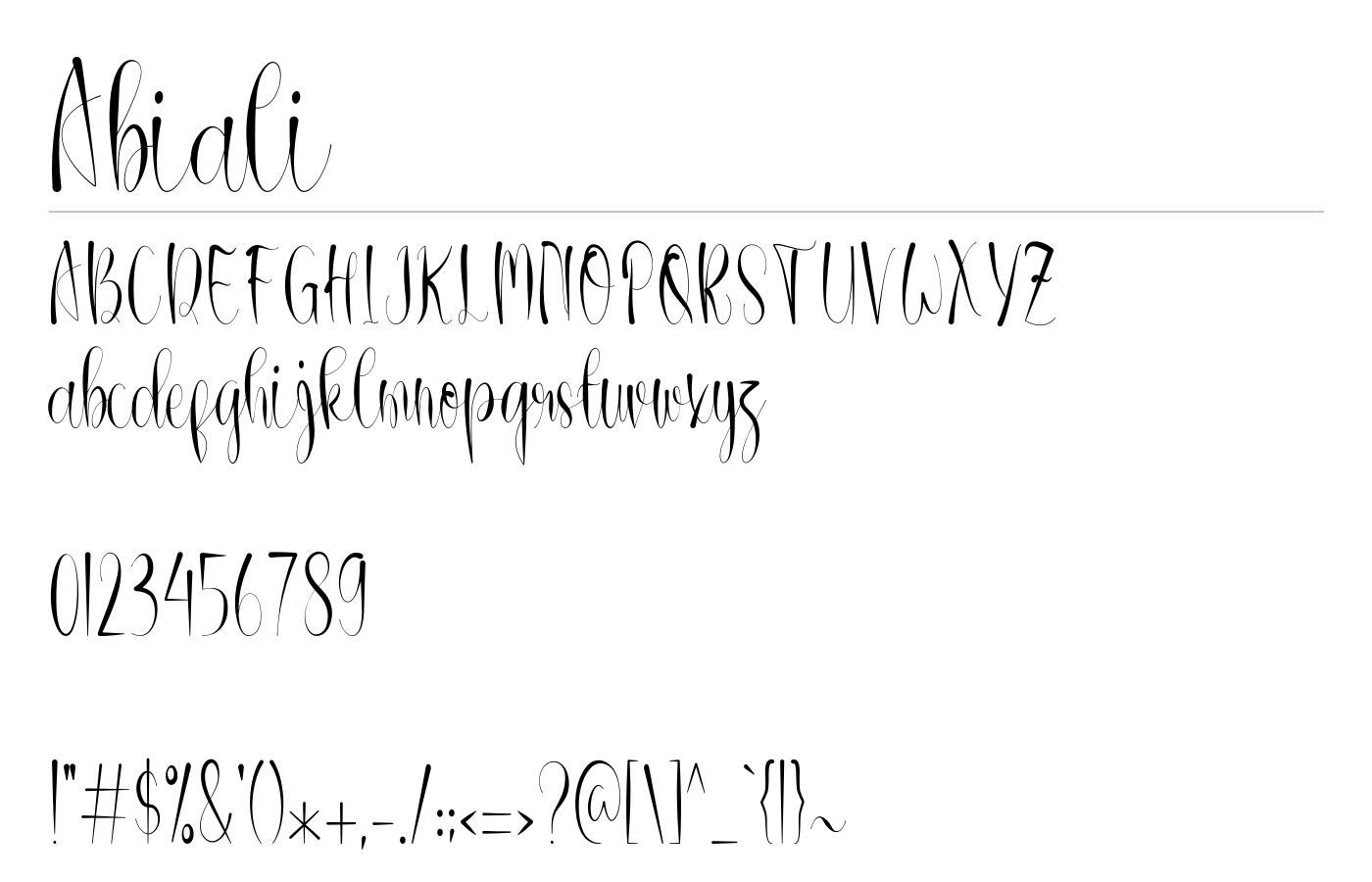
Abiali is a delicate, handwritten script font characterized by its tall, slender letterforms and elegant, flowing strokes that alternate between thin and slightly thicker lines. Its playful yet refined style makes it ideal for creative projects requiring a personal, artistic touch, such as invitations, branding for boutique or fashion products, and stylish editorial headlines. The font’s airy spacing and whimsical curves convey a sense of grace and individuality while maintaining readability.
Abiali Font